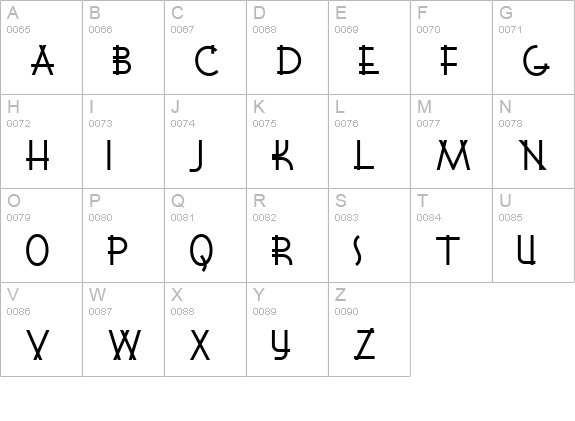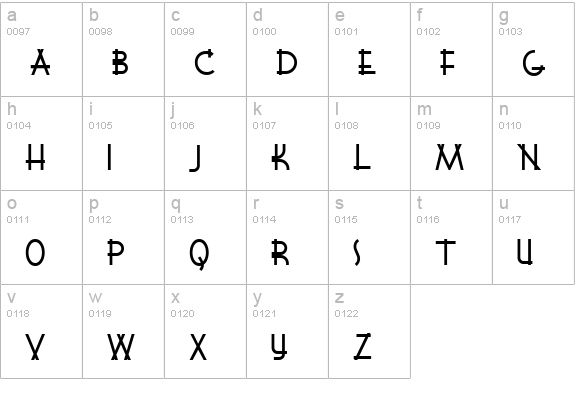
Wigwam HB Font Details
Wigwam HB font is a unique and artistic typeface that will bring a touch of whimsy to any design project. Its playful and hand-drawn style adds a sense of fun and creativity to your typographic compositions. With its bold strokes and irregular letterforms, Wigwam HB font is perfect for adding a touch of personality to your branding materials, logos, posters, and more. It exudes a sense of energy and youthfulness that is sure to captivate your audience. What sets Wigwam HB font apart is that it is not only visually appealing but also freely available to download at FontsMarket.com. This means that you can enjoy the beauty and versatility of this font without any cost. Whether you are a student, a designer, or a small business owner, having access to high-quality fonts for free is a true game-changer. So why wait? Download Wigwam HB font today and let your creativity soar. It's time to add a touch of playfulness and uniqueness to your designs, all while staying within your budget. Don't miss out on this fantastic opportunity to enhance your visual communication with this freely available font.